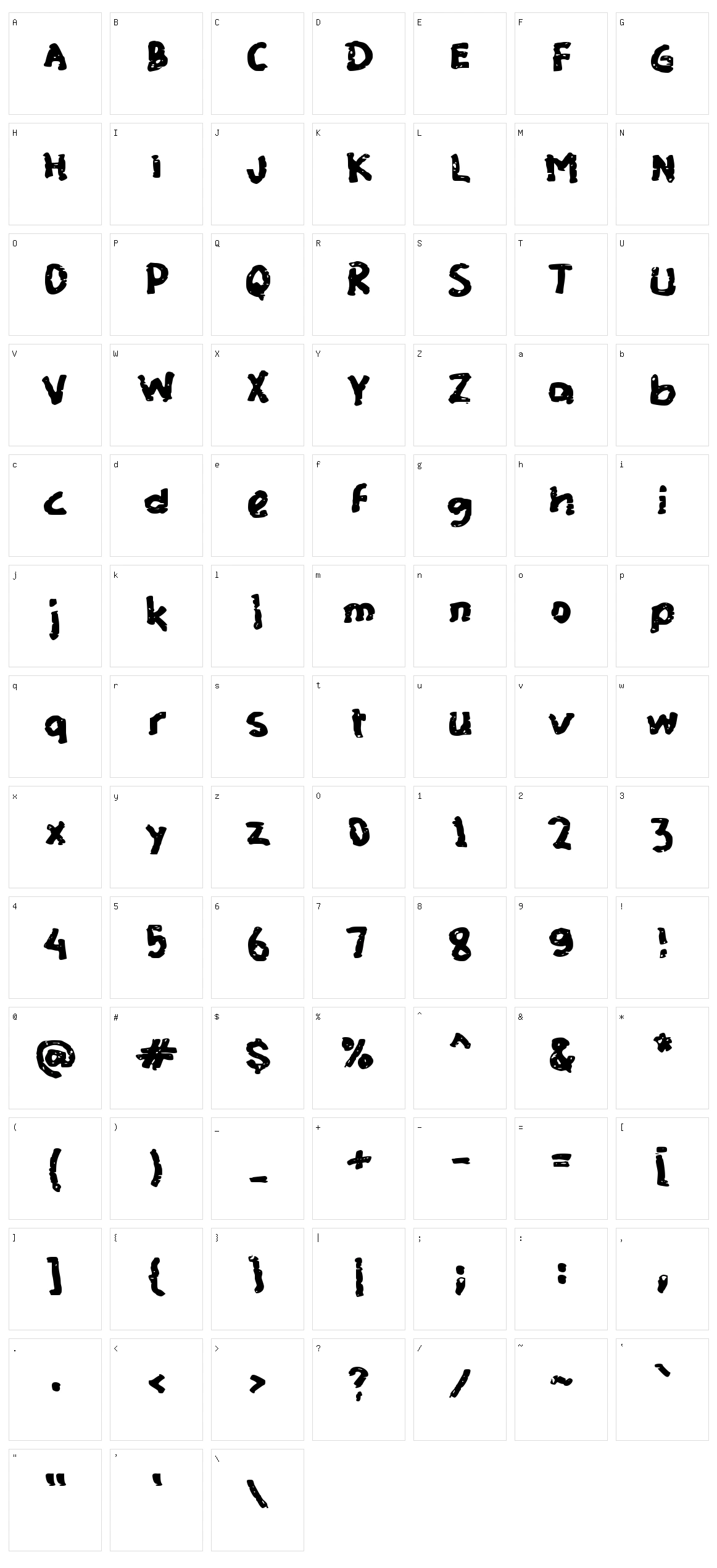
The free font e Eceng is carefully designed by wep, showcasing a thoughtful balance of creativity and usability and falls under the Cartoon font style. When you download the ZIP file, it contains only 19.55 KB of font files, making it lightweight and quick to download. Please review the license details below to understand permitted usage and distribution rights. If license information is not available, we recommend using this font for personal projects only or contacting the author directly for commercial usage permissions.